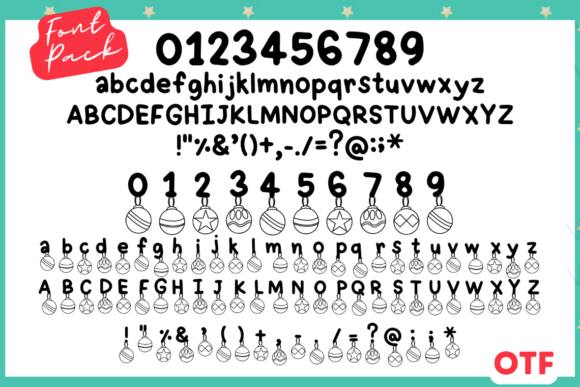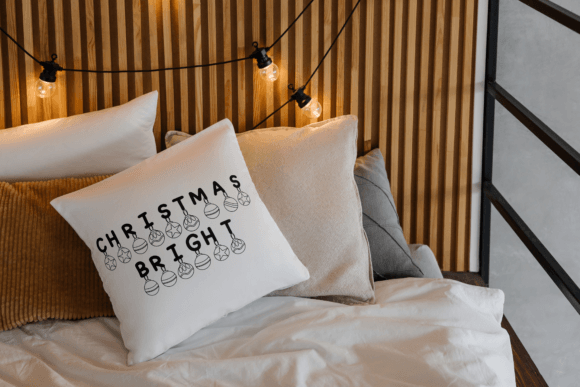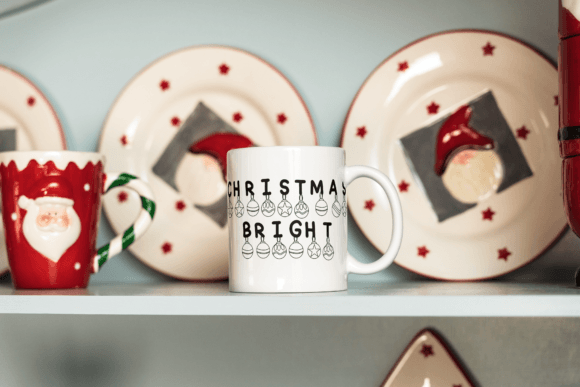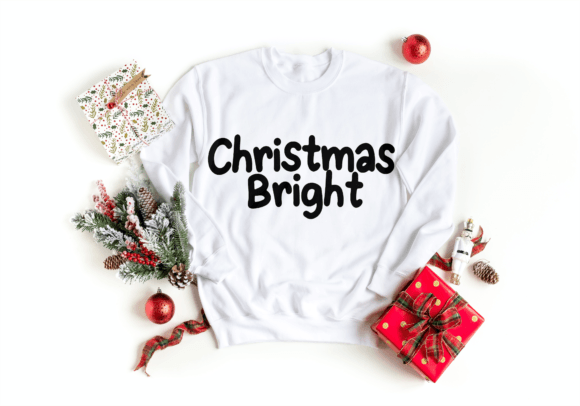
Introducing Christmas Bright 4 Font: The Ultimate Holiday Typeface
It’s the most wonderful time of the year! As the festive season approaches, designers and crafters are on the lookout for the perfect font to add a touch of holiday magic to their projects. Look no further than Christmas Bright 4 Font, a unique, hand-lettered typeface that embodies the warmth and joy of the season.
A Festive Font like No Other
Christmas Bright 4 Font is a newly crafted font, carefully designed to bring the festive spirit to life. With its enchanting and adaptable design, this font is perfect for a wide range of projects, from holiday cards and invitations to festive packaging and decorations. Whether you’re a designer, crafter, or DIY enthusiast, this font is sure to become your go-to choice for adding a touch of holiday cheer to your creations.
What Sets Christmas Bright 4 Font Apart
So, what makes Christmas Bright 4 Font so special? Here are just a few features that set it apart from other holiday fonts:
- Unique Hand-Lettered Design: Each letter has been carefully crafted by hand, giving the font a personal and distinctive touch.
- Festive yet Versatile: While the font is designed specifically for the holiday season, its versatile design makes it suitable for use in a wide range of projects, from spring to summer and beyond.
- Adaptable and Enchanting: The font’s playful and whimsical design makes it perfect for adding a touch of magic to your creations.
- Exclusive and High-Quality: As a premium font, Christmas Bright 4 Font is of exceptionally high quality, ensuring that your projects stand out from the crowd.